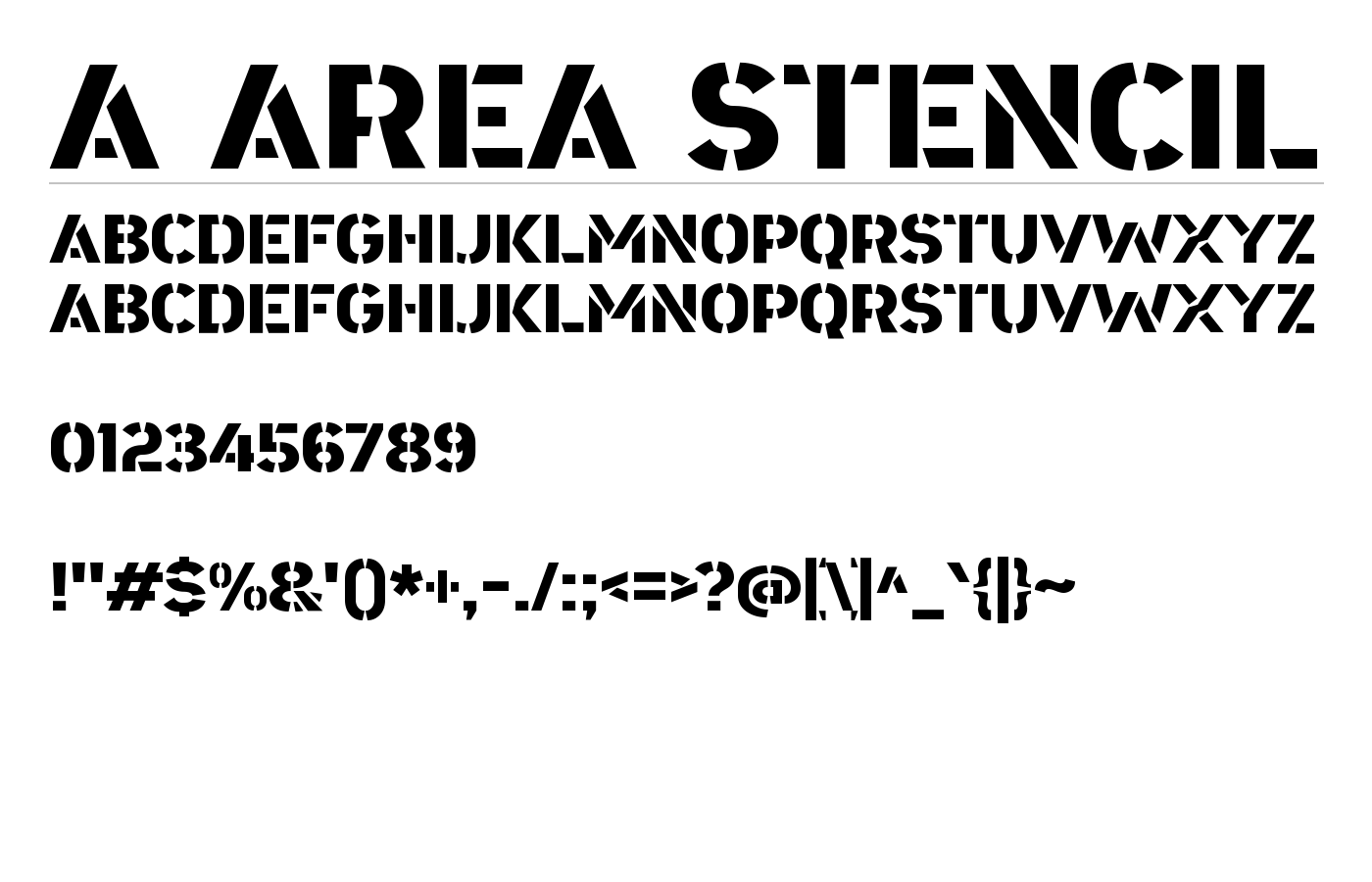
Area Stencil is a bold, geometric stencil sans serif font characterized by its sharp, angular cuts that create a striking industrial and modern look. Its strong weight, condensed width, and high contrast between solid and open spaces make it ideal for impactful headlines, signage, and branding that demand attention while maintaining legibility. This font suits projects requiring a bold, tactical, or urban aesthetic, such as posters, product packaging, and logos with a contemporary edge.
a Area Stencil Font